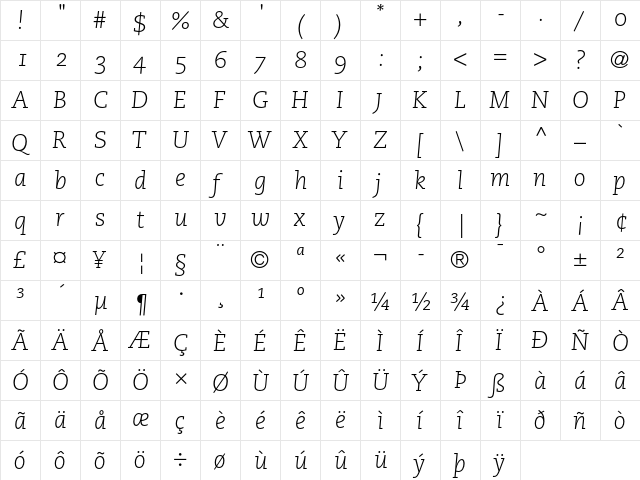
PMN Caecilia 46 Light Italic OsF
Design Context for PMN Caecilia Typeface
PMN Caecilia is a composed and adaptable typeface that performs quietly and consistently across a wide range of design contexts. The slanted form adds forward momentum and visual energy. The delicate stroke weight brings airiness and refinement to layouts.
Pro Tip: Try PMN Caecilia for annotation and caption copy alongside an upright companion — the contrast in angle creates a dynamic but ordered typographic system.